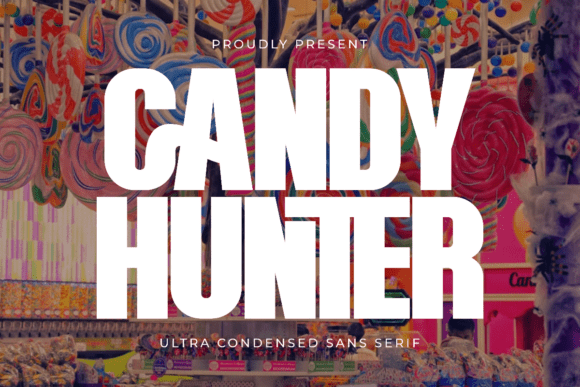
The Sweetest Font You’ll Ever Meet: A Deep Dive into Candy Hunter
I’ll never forget the time I was working on a Halloween-themed project for a client, and I just couldn’t find the right font to capture the playful yet spooky vibe. The client wanted something that would make their candy packaging and event posters stand out, but I was stuck in a design rut. That was until I stumbled upon the Candy Hunter font. **This bold and ultra-condensed sans serif font** has been a game-changer for my design projects, and I’m excited to share its awesomeness with you! 🎃
An Honest Review of Candy Hunter
• ✅ Playful yet professional aesthetic: Candy Hunter perfectly balances fun and sophistication, making it ideal for a wide range of design projects.
• ✅ Tall and clean letterforms: The font’s sleek, tightly-spaced letterforms create a powerful visual impact that’s hard to ignore.
• ✅ Versatility: From Halloween-themed projects to candy packaging, event posters, and children’s products, Candy Hunter is an excellent choice for any design that needs to be memorable and eye-catching.
While Candy Hunter is an amazing font, there are a few things to keep in mind:
• 🤔 Legibility at small sizes: Due to its ultra-condensed nature, Candy Hunter might not be the best choice for body text or small font sizes.
• 🤔 Limited use of OpenType features: While Candy Hunter does offer some OpenType features, it’s not as extensive as some other fonts on the market.
The Backstory Behind Candy Hunter
Candy Hunter was designed with the intention of capturing the playful energy of candy and the magic of childhood. The designer wanted to create a font that would be both fun and professional, making it perfect for a wide range of design projects. While the designer’s inspiration is shrouded in mystery, it’s clear that Candy Hunter was crafted with love and attention to detail.
Q: Is Candy Hunter suitable for body text?
A: While Candy Hunter is an amazing font, it’s not ideal for body text due to its ultra-condensed nature. It’s best used for headings, titles, and short paragraphs.
Q: Does Candy Hunter support OpenType features?
A: Yes, Candy Hunter offers some OpenType features, including ligatures and stylistic alternates. You can access these features in compatible design software like Adobe Photoshop and Illustrator.
Q: Is Candy Hunter a versatile font?
A: Absolutely! Candy Hunter is an incredibly versatile font that can be used for a wide range of design projects, from fun and playful to professional and modern.